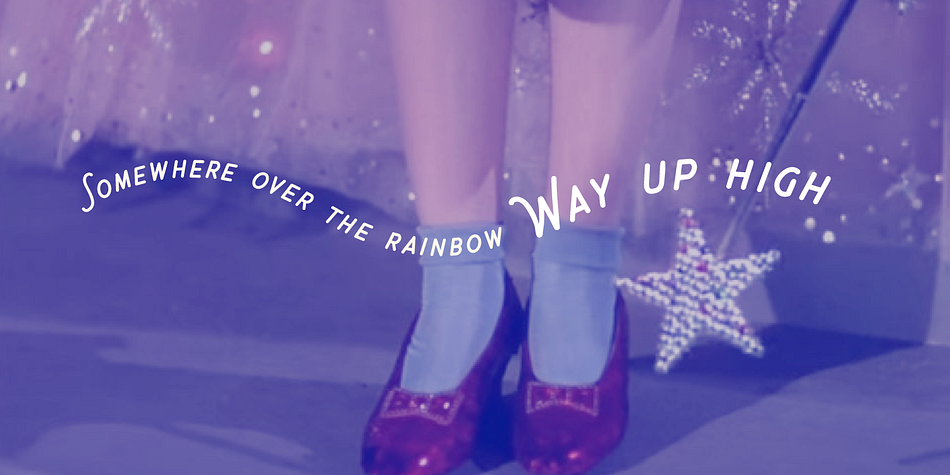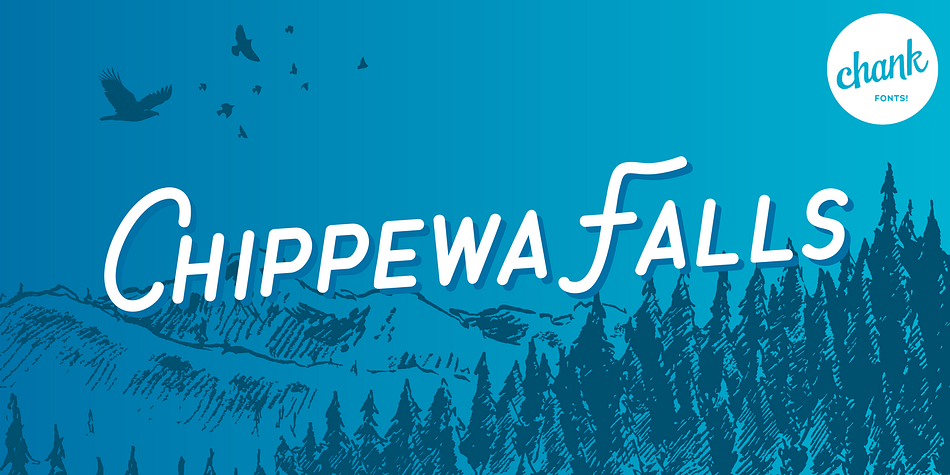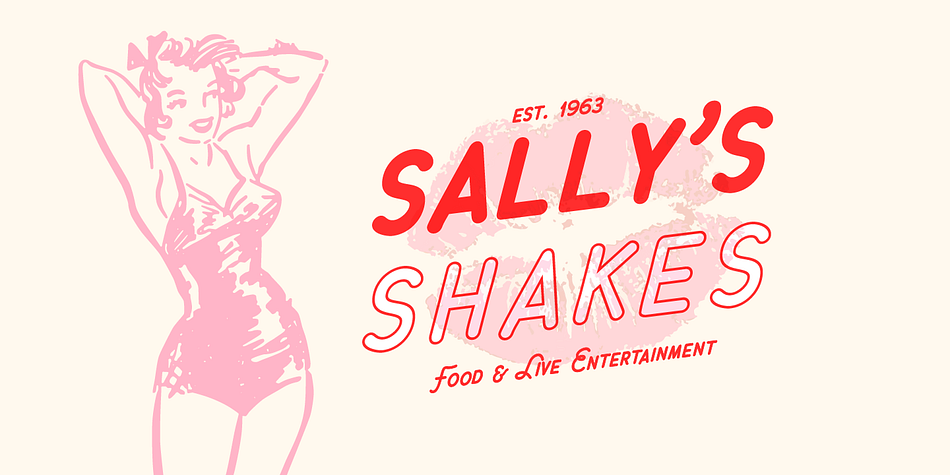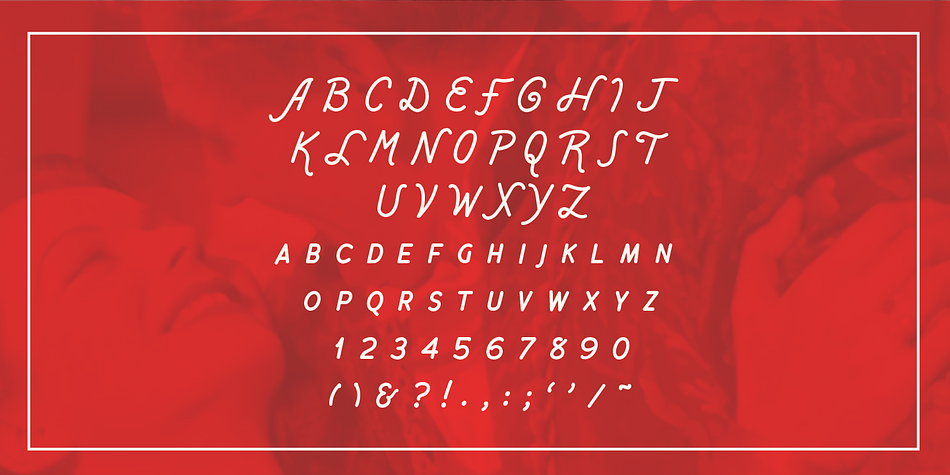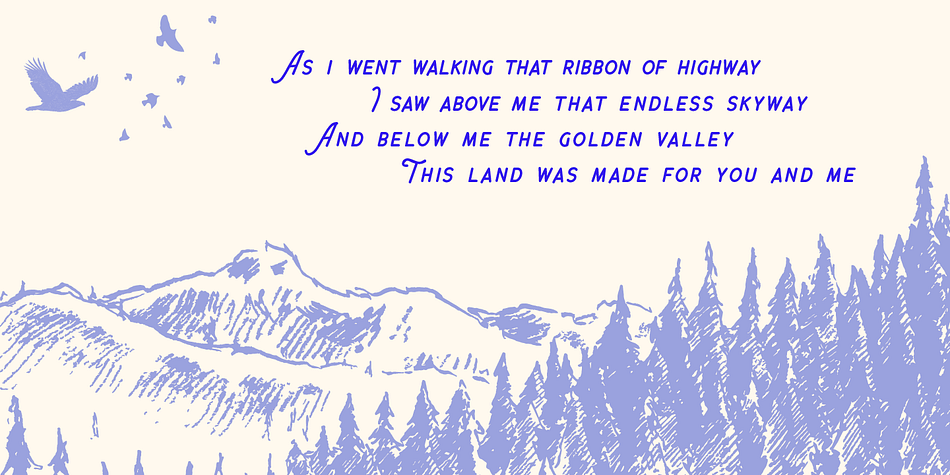
Chippewa Falls
Designed by Chank Diesel, Chippewa Falls is a hand drawn font family published by Chank Fonts.
In the spirit of the old days, before water sparkled and before typefaces were known as fonts, Chank is proud to introduce Chippewa Falls the font. This font comes with fancy swirly uppercase letters and stout small caps for lowercase, as well as a heart-warming story. Chank rescued this former custom font from an abandoned design proposal. He gave it some TLC and before long a retro typeface emerged, with lettering worthy of good old fashioned sleigh rides and candy canes. Enjoy this font as you would a cup of hot cocoa next to a potbelly stove on a snowy day.